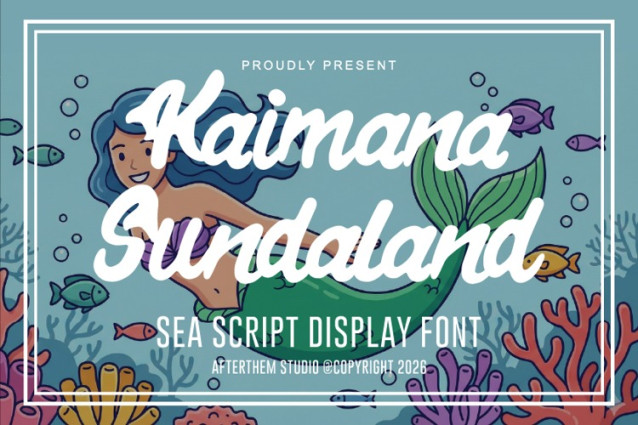
Kaimana Sundaland Font
Kaimana Sundaland Font is a simple and modern display font suitable for quotes, logos, headings, titles, and many more. Use it on any of your creative projects, and your designs will become outstanding!